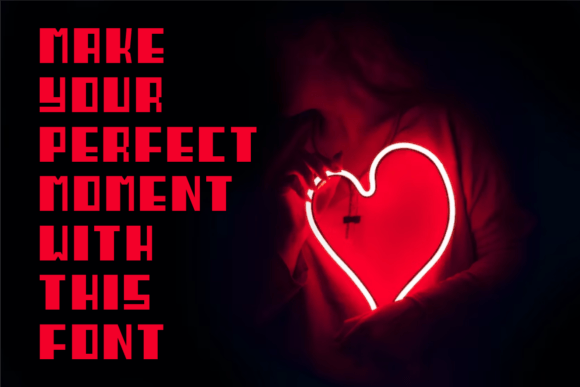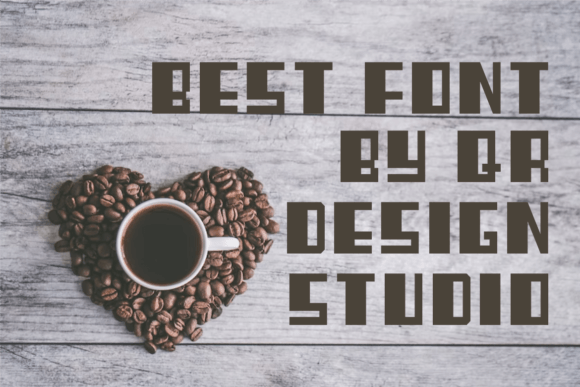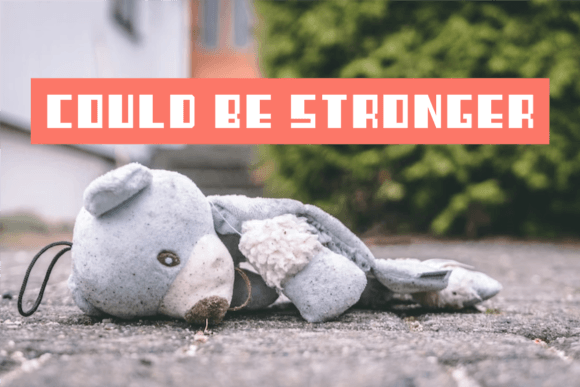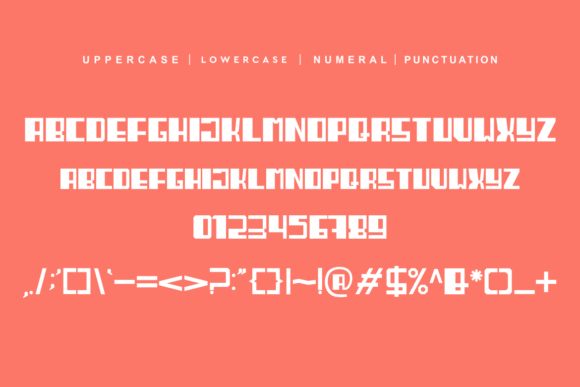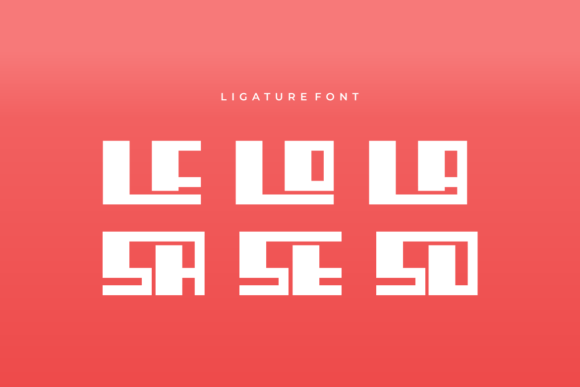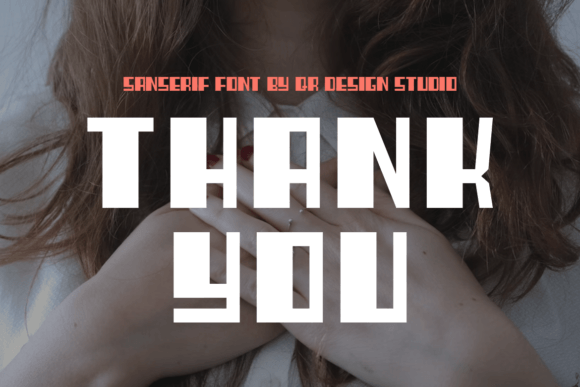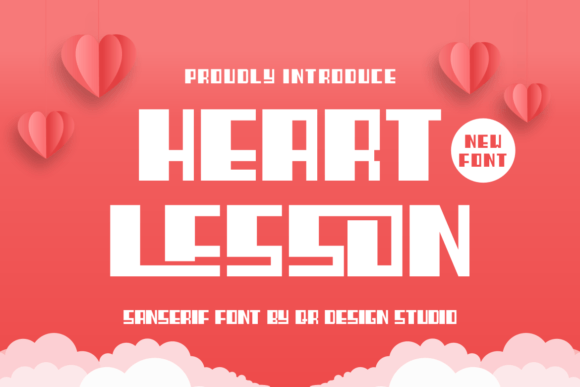
Introducing Heart Lesson Font: A Bold and Assertive Sans Serif Font
Are you tired of using the same old fonts in your designs? Look no further! Heart Lesson Font is a game-changing, bold, and assertive sans serif font that can elevate any creation. In this article, we’ll dive into the features, benefits, and uses of Heart Lesson Font, and explore why it’s a must-have for designers and crafters.
A Versatile Font for Any Topic
Heart Lesson Font is a versatile font that can be used for a wide range of topics and projects. Whether you’re designing a logo, brochure, or social media post, this font is sure to make a statement. Its bold and assertive personality makes it perfect for headlines, titles, and emphasis text, while its clean and modern design ensures it will fit in seamlessly with any brand or style.
Key Features of Heart Lesson Font
- Bold and Assertive: Heart Lesson Font is designed to make a statement. Its bold and assertive personality is perfect for grabbing attention and conveying confidence.
- Sans Serif: The clean and modern sans serif design of Heart Lesson Font makes it easy to read and versatile for use in a variety of contexts.
- Highly Legible: Despite its bold personality, Heart Lesson Font is highly legible, even at small sizes.
Benefits of Using Heart Lesson Font
So why should you choose Heart Lesson Font for your next project? Here are just a few benefits of using this incredible font:
- Instant Recognition: The bold and assertive personality of Heart Lesson Font ensures your message will be seen and remembered.
- Professional Look: The clean and modern design of Heart Lesson Font gives your project a professional and polished look.
- Time-Saving: With Heart Lesson Font, you can create stunning designs in no time. Its versatility and legibility make it easy to use and experiment with.
Use Cases for Heart Lesson Font
So, how can you use Heart Lesson Font in your designs? Here are a few ideas to get you started:
- Logos and Branding: Use Heart Lesson Font to create a bold and memorable logo that stands out from the crowd.
- Headlines and Titles: Heart Lesson Font is perfect for headlines and titles, adding emphasis and grabbing attention.
- Social Media Graphics: Use Heart Lesson Font to create eye-catching social media graphics that stop scrollers in their tracks.
- Advertising: Heart Lesson Font is perfect for advertising, where bold and attention-grabbing text is essential.
Tips for Using Heart Lesson Font
To get the most out of Heart Lesson Font, here are a few tips to keep in mind:
- Experiment with Sizes: Heart Lesson Font looks great at a range of sizes, from small and subtle to large and bold.
- Play with Colors: Try pairing Heart Lesson Font with a range of colors to create stunning contrast and visual interest.
- Use it Sparingly: While Heart Lesson Font is incredibly versatile, it’s best used sparingly to add emphasis and create visual hierarchy.